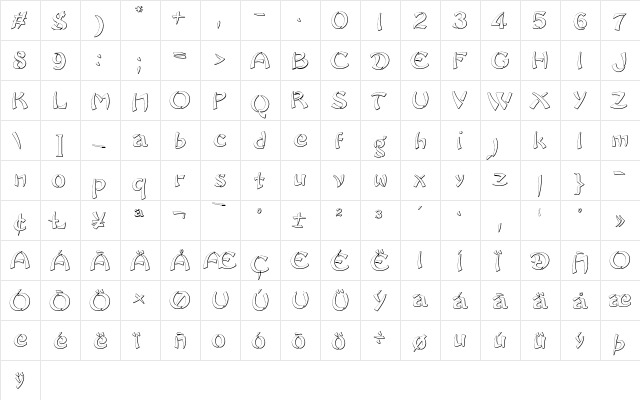
Sayonara Beveled Regular
| Foundry | Iza W |
Design Context for Sayonara Beveled Typeface
Sayonara Beveled is a composed and adaptable typeface that performs quietly and consistently across a wide range of design contexts.